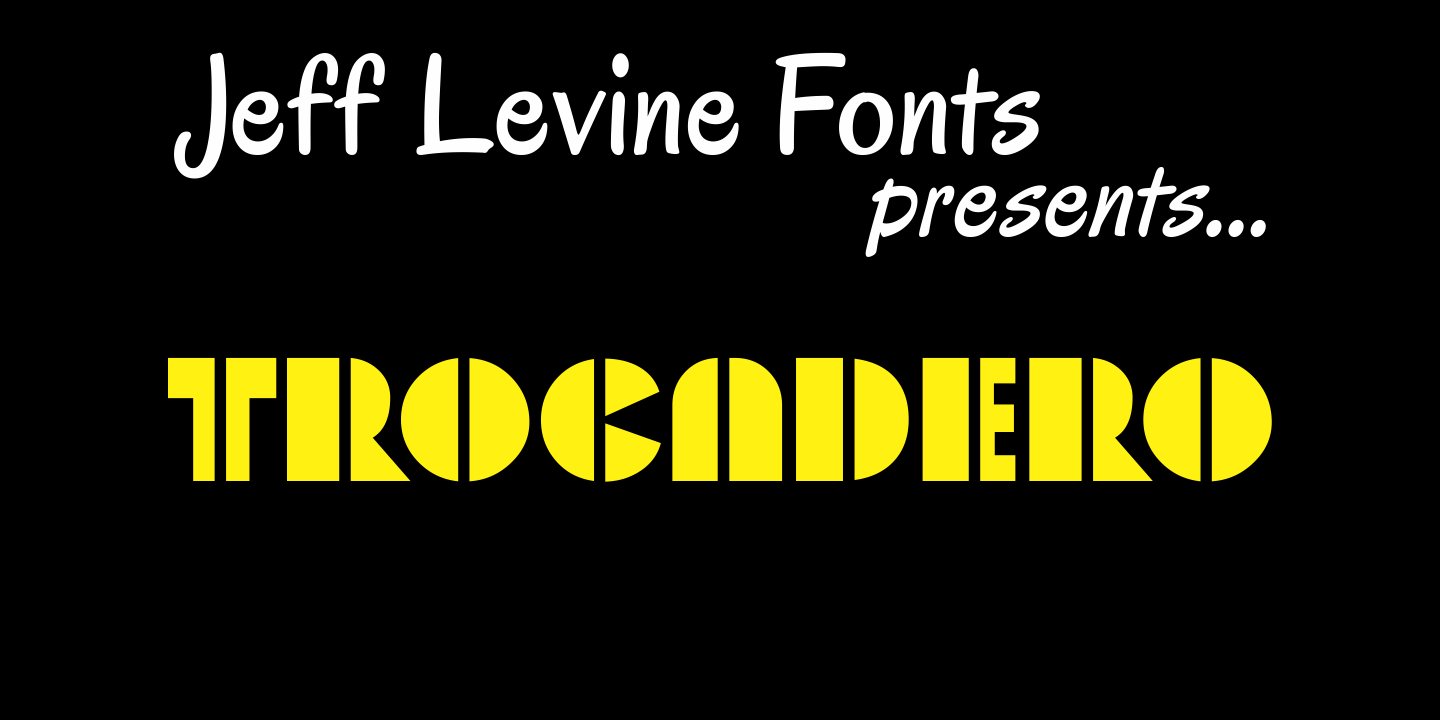
Trocadero
Trocadero JNL was inspired by an early 1950s photo showing the signage for the Trocadero Restaurant located on Liberty Avenue and 23rd Street in Miami Beach. Highly stylized and classically Art Deco in design, it is best used in short one or two word titles.
Trocadero JNL Regular by Jeff Levine Fonts